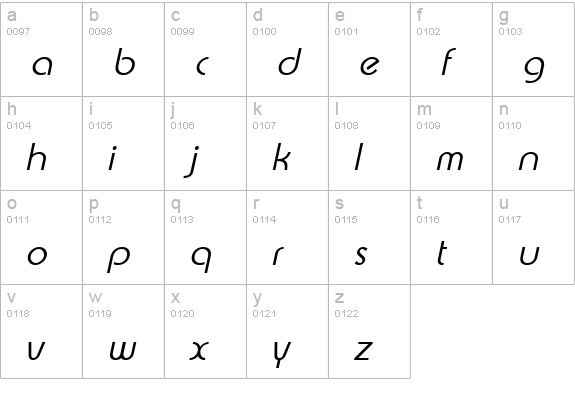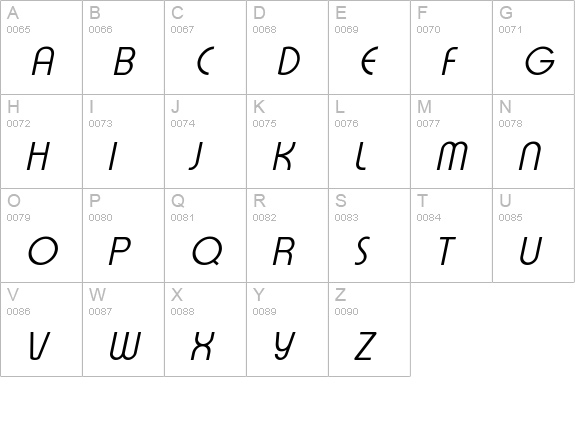
XpressiveLight Italic Font Details
XpressiveLight Italic is a distinctive, italic variant in the XpressiveLight typeface family \xE2\x80\x94 well suited to design and typography projects.
XpressiveLight Italic font is a beautifully designed typeface that exudes elegance and sophistication. Its delicate curves and stylish slant create a sense of fluidity and grace, making it perfect for adding a touch of refinement to any design project. The italic styling of XpressiveLight adds a touch of flair and creativity, making it a versatile choice for both formal and informal applications. Best of all, XpressiveLight Italic font is available for free download at FontsMarket.com. This means you can easily access this stunning typeface and use it in your projects without any cost. Whether you're designing a logo, creating invitations, or working on a branding project, XpressiveLight Italic font will elevate your designs and make them stand out. Don't miss out on the opportunity to enhance your creations with the beauty and sophistication of XpressiveLight Italic font. Download it for free today and add a touch of elegance to your designs.